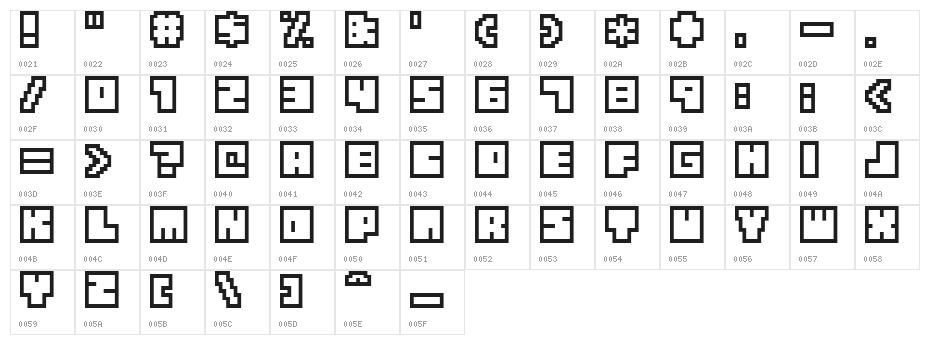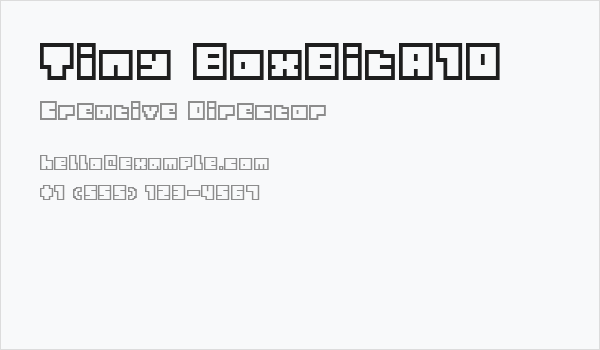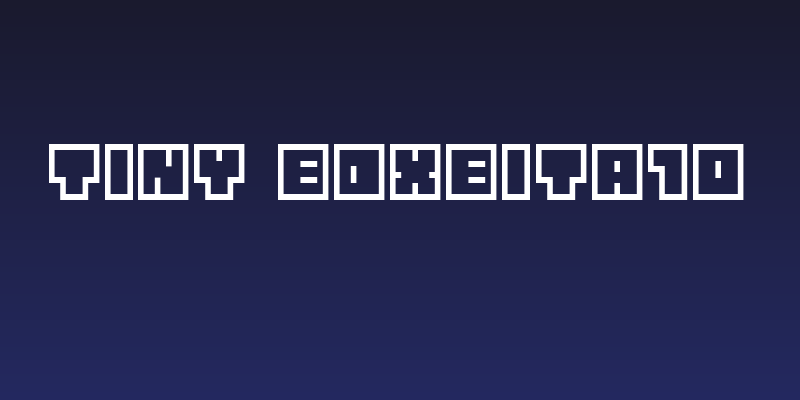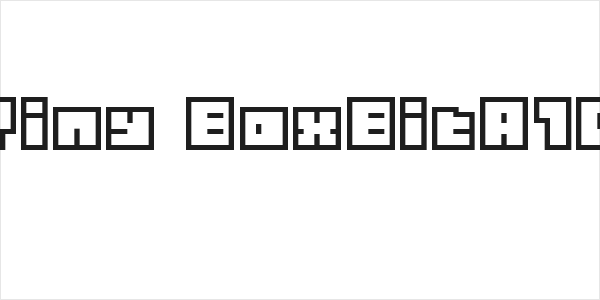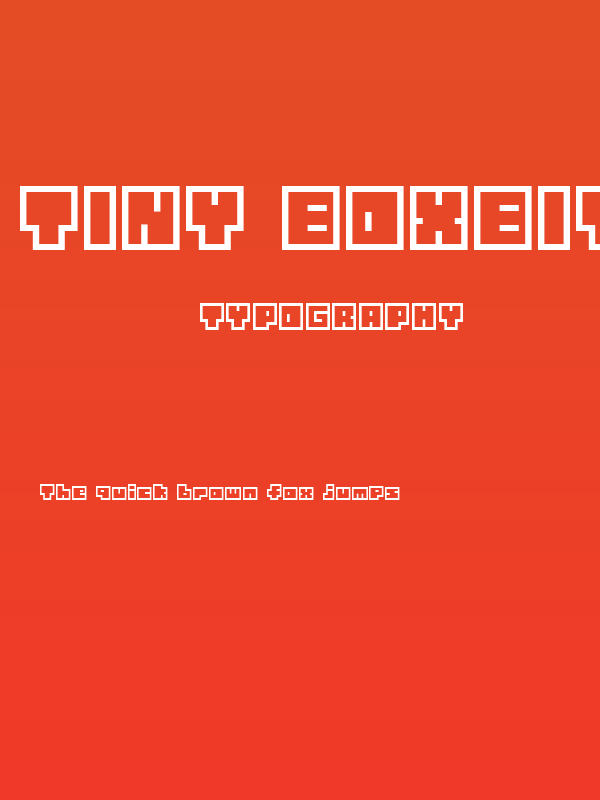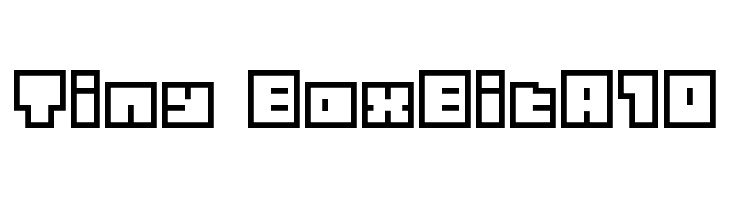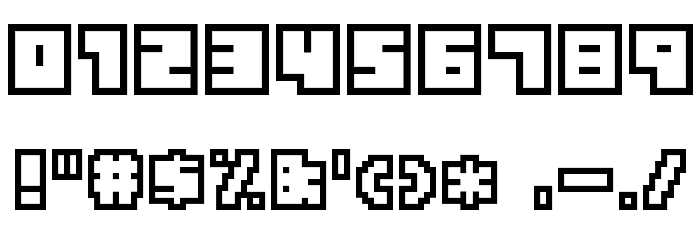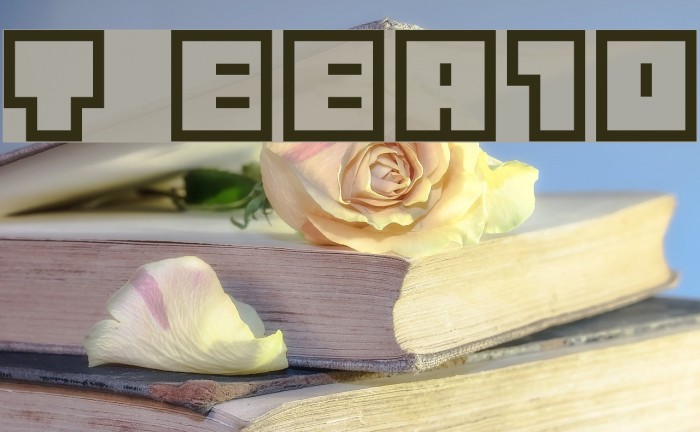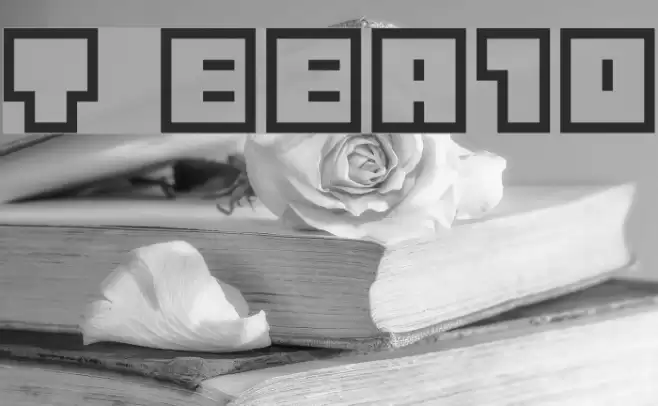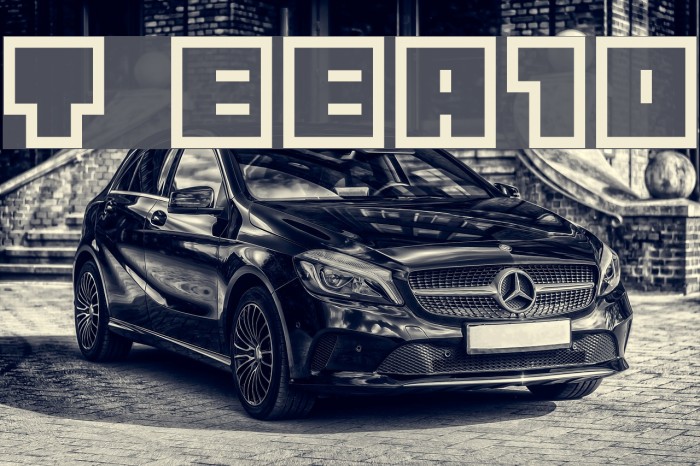
Tiny BoxBitA10 Font
Tiny BoxBitA10 Description
This font features a distinct pixelated, blocky style reminiscent of retro video game graphics. Each character is constructed with sharp, angular edges and a uniform thickness, creating a cohesive and structured appearance. The uppercase and lowercase letters maintain a consistent height, contributing to its monospaced feel. Numbers and special characters follow the same design principles, ensuring visual harmony across all elements. The font's geometric nature and bold outlines make it highly legible, even at smaller sizes, while its nostalgic aesthetic evokes a sense of playfulness and creativity.
| Overall Style | Retro, Playful |
| Use Case | Headlines, Logos, Digital Art |
| Proposed Projects | Ideal for video game design, retro-themed posters, digital art projects, and any creative work that requires a nostalgic or playful touch. |